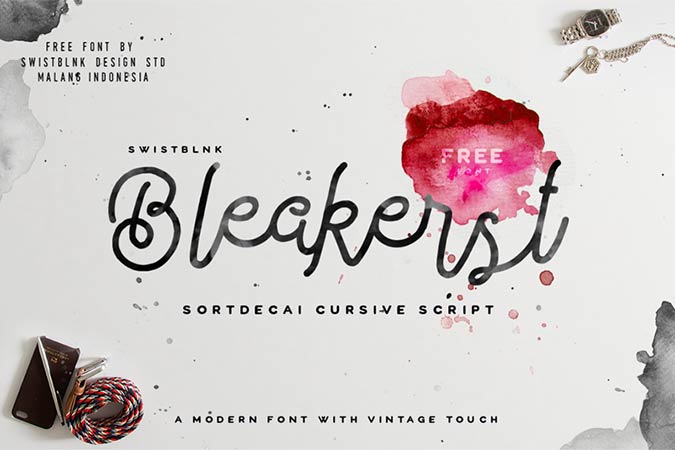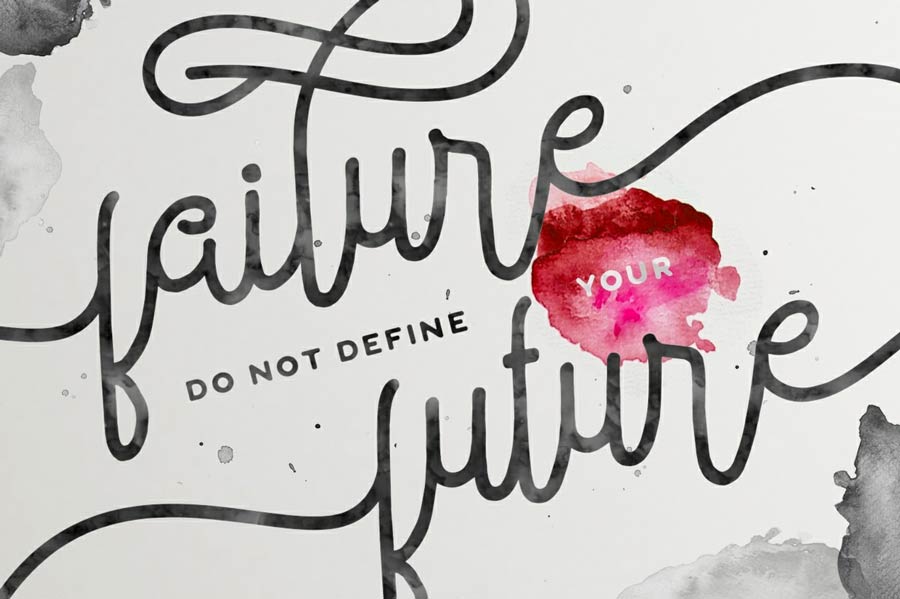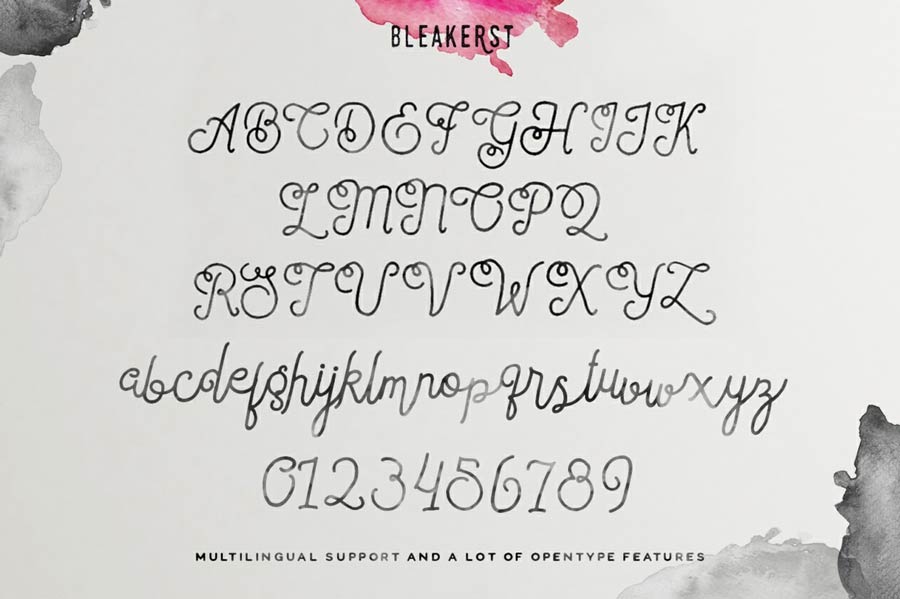
Sortdecai Cursive Wild Script is a beautifully handlettered vintage style script font that is free to download. This font is perfect for decorative text elements and also print materials for female-centric designs and also classy designs.